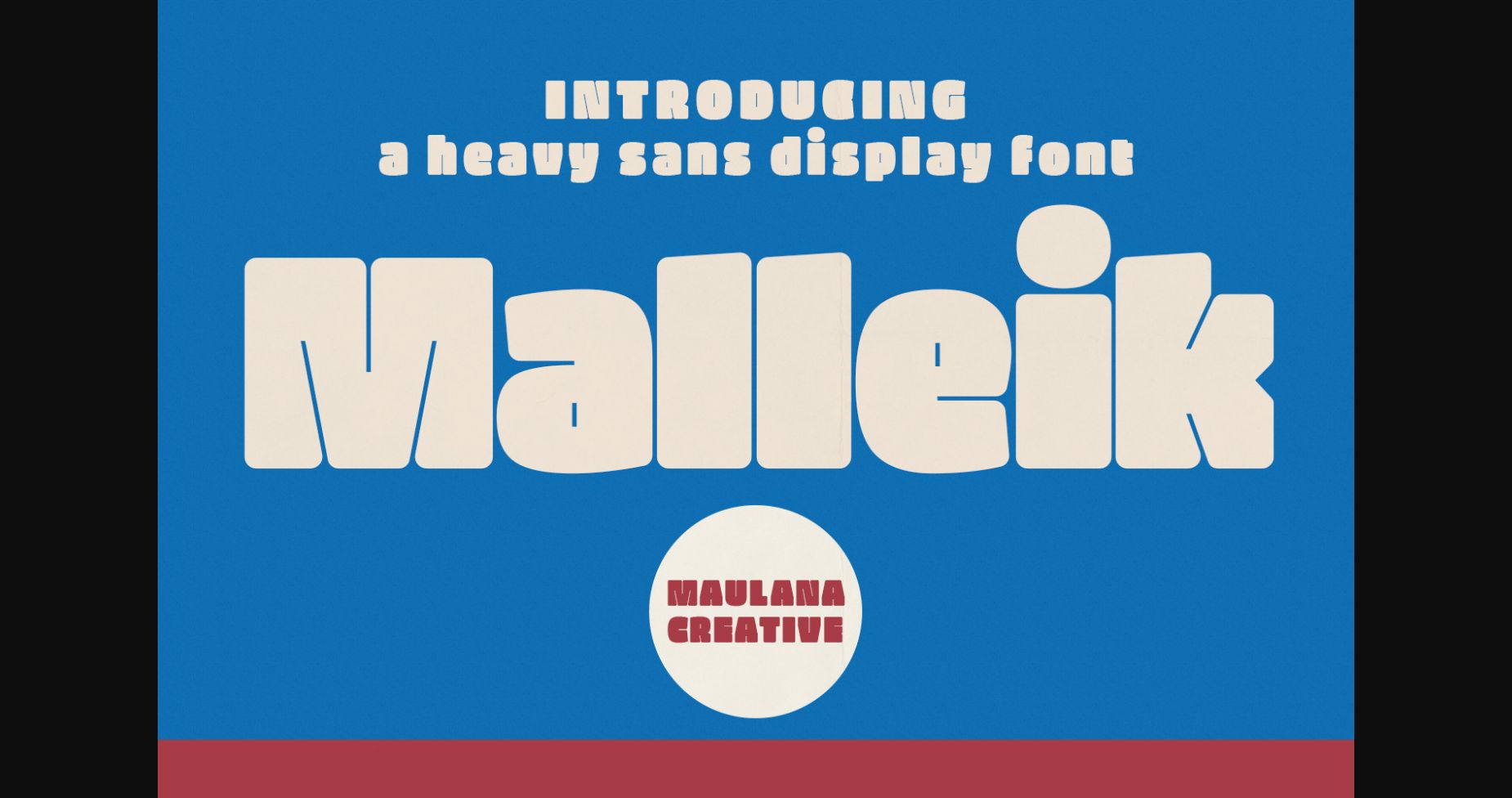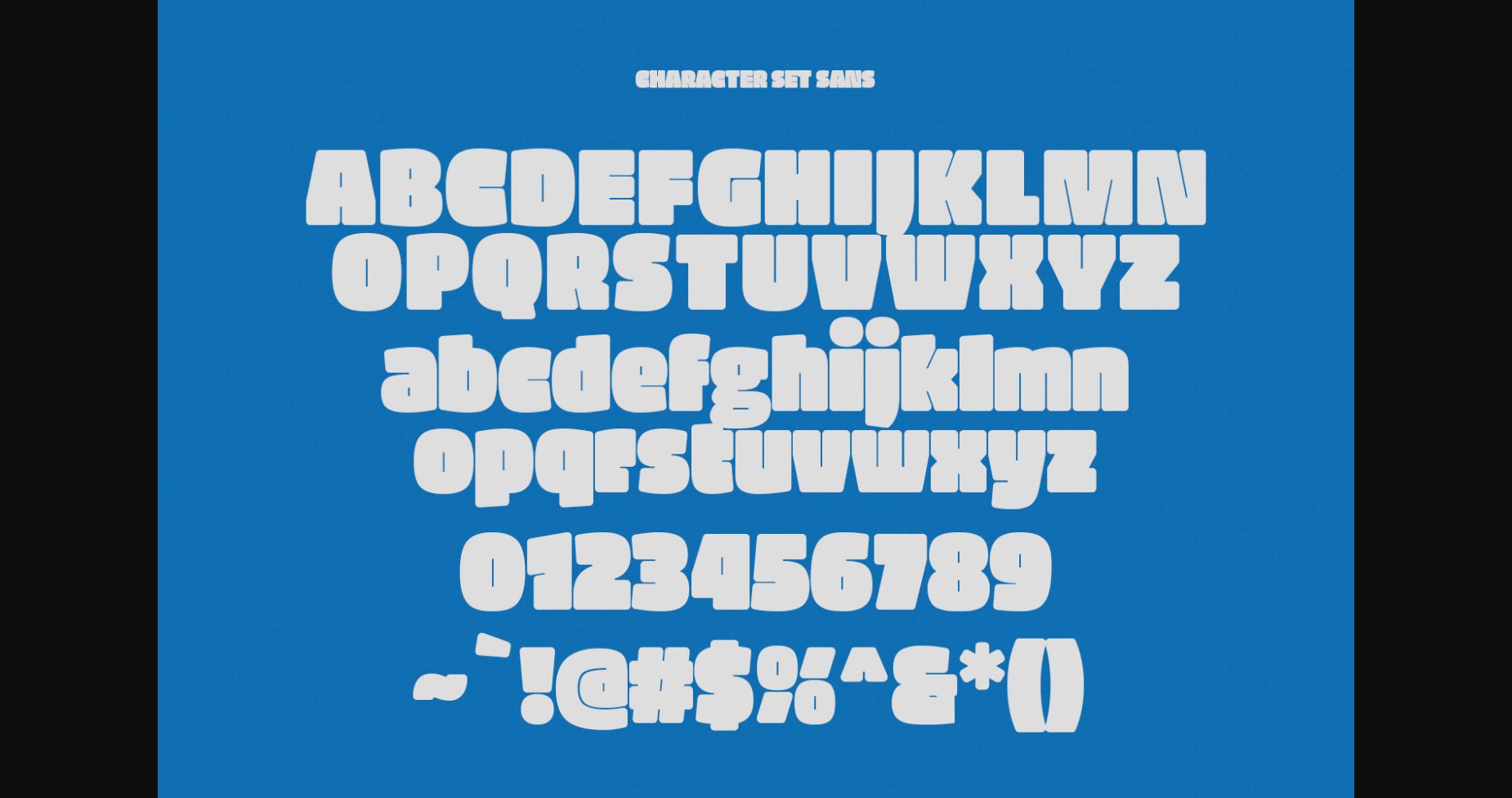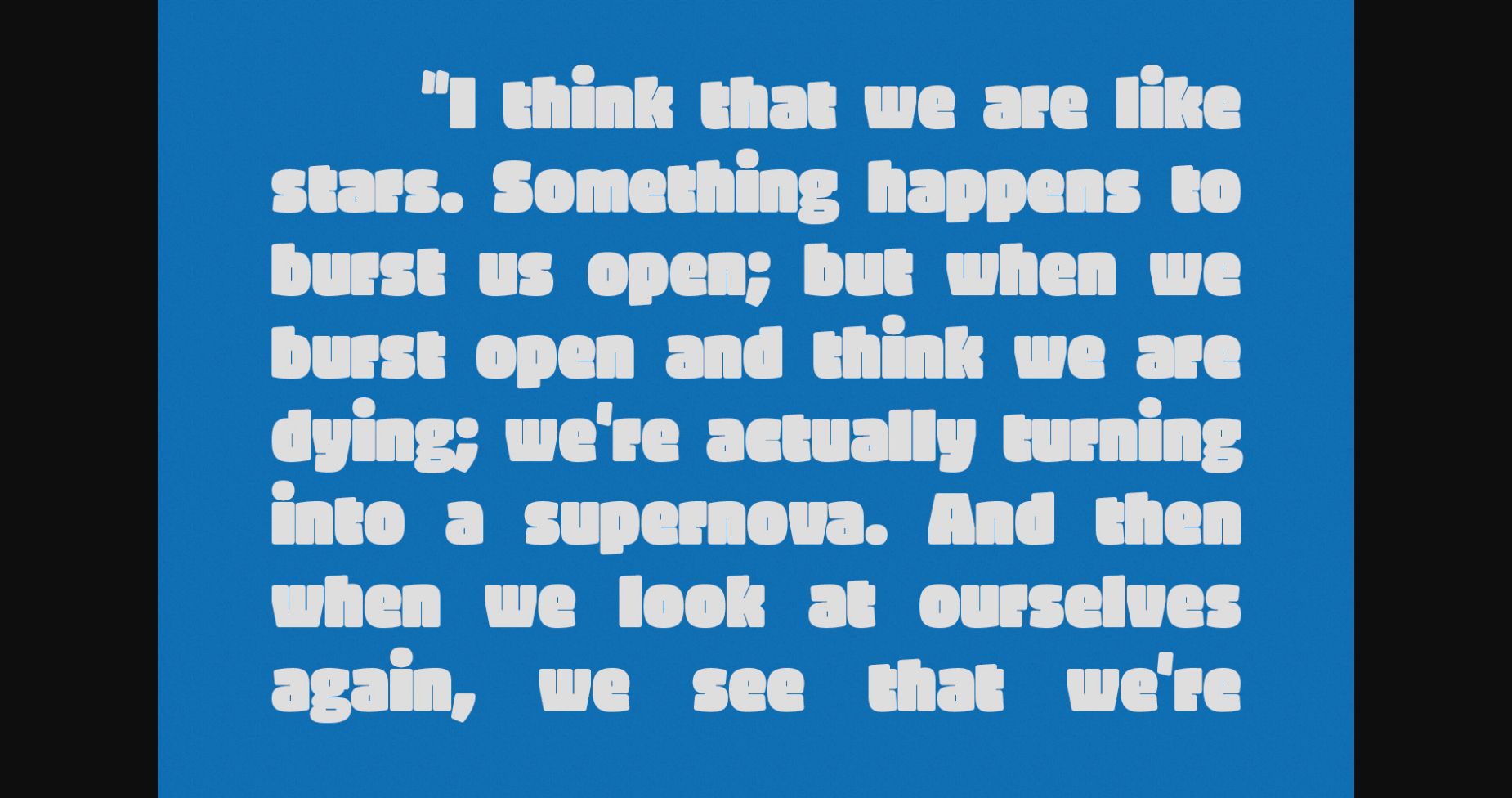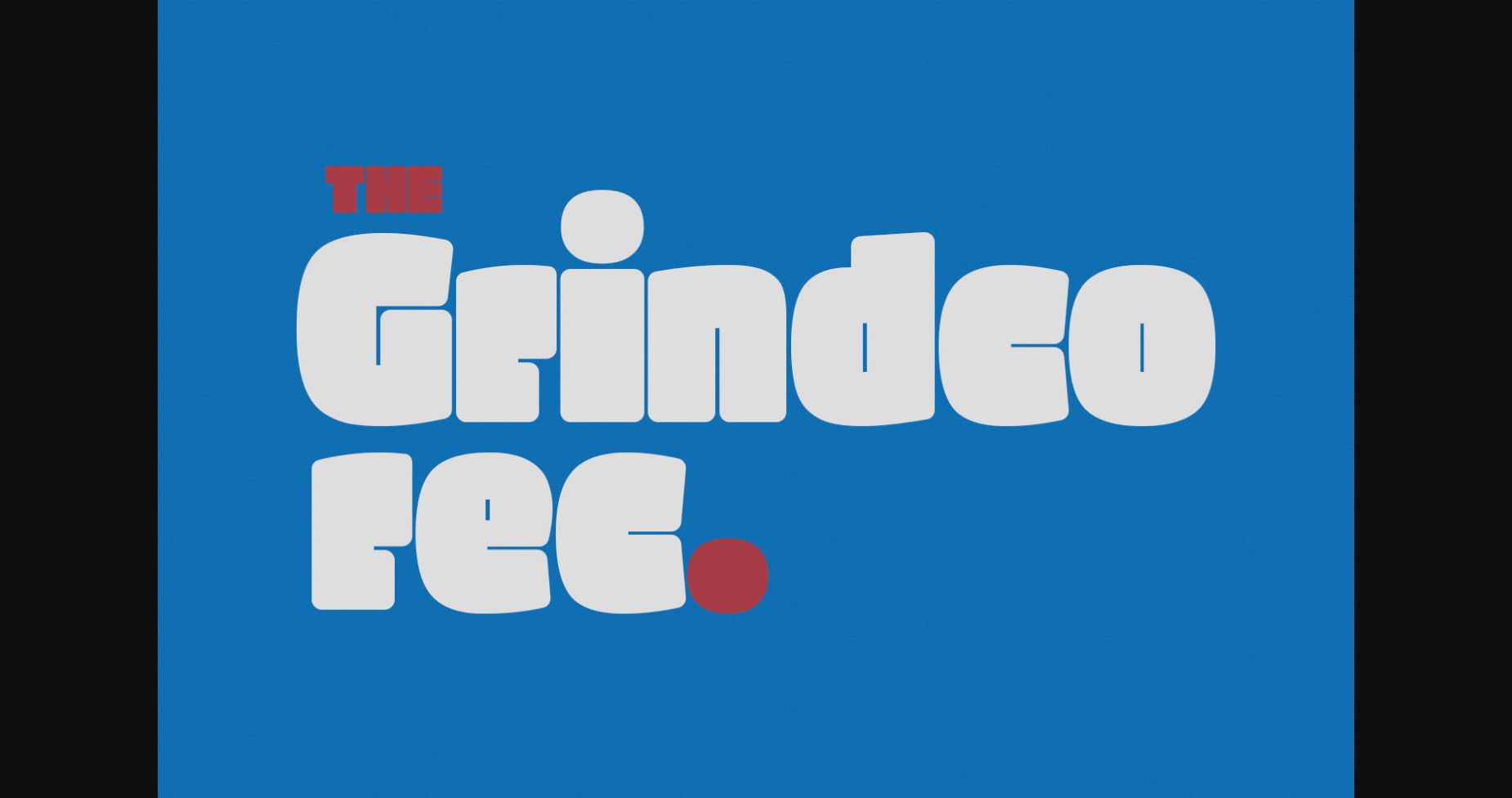
About Malleik Font
Malleik is a fat sans display font. Heavy stroke, fun character with a bit of ligatures and alternates. This font is good for logo design, Social media, Movie Titles, Books Titles, a short text even a long text letter and good for your secondary text font with script or serif. Make a stunning work with Malleik font.